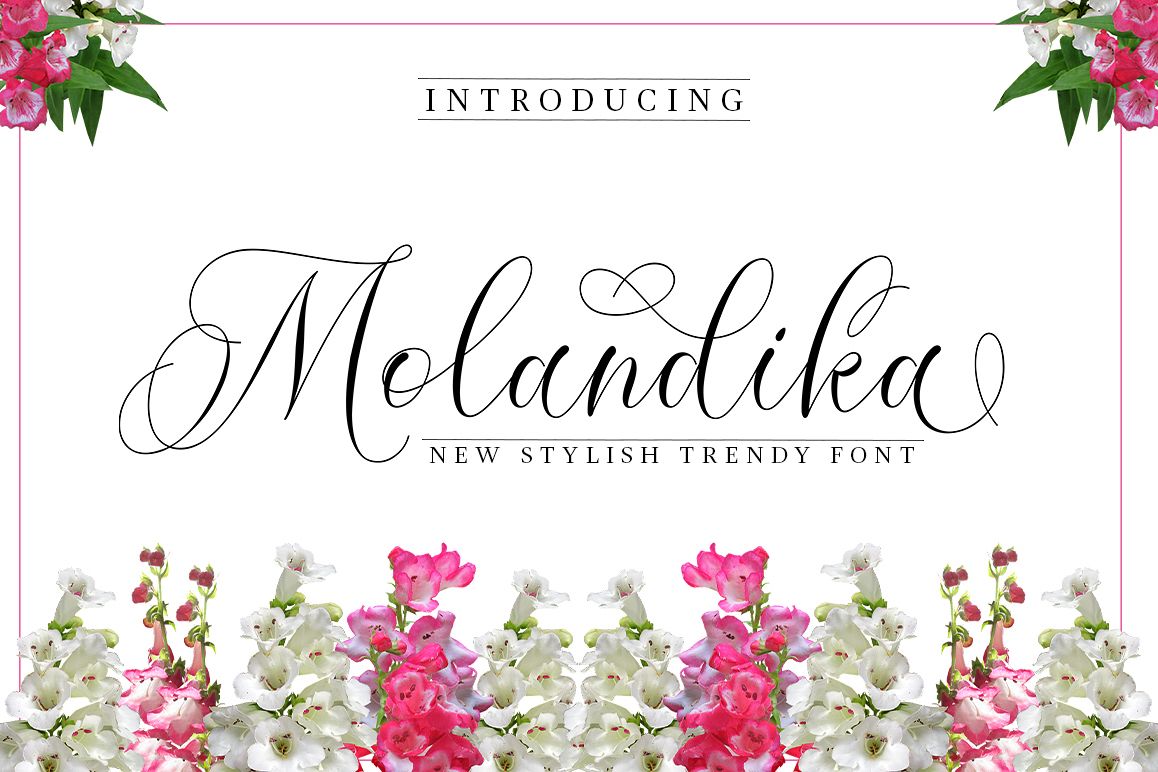
Molandika Script - Elegant Font
Molandika Script is elegant calligraphy font, designed to convey elegance and style. It is slender, feminine and friendly, This font is casual and pretty with swashes. Can used for various purposes. such as logo, product packaging, wedding invitations, branding, headlines, signage, labels, signature, book covers, posters, quotes and more.
Script features OpenType stylistic alternates, ligatures and International support for most Western Languages is included. To enable the OpenType Stylistic alternates, you need a program that supports OpenType features such as Adobe Illustrator CS, Adobe Indesign & CorelDraw X6-X7, Microsoft Word 2010 or later versions.